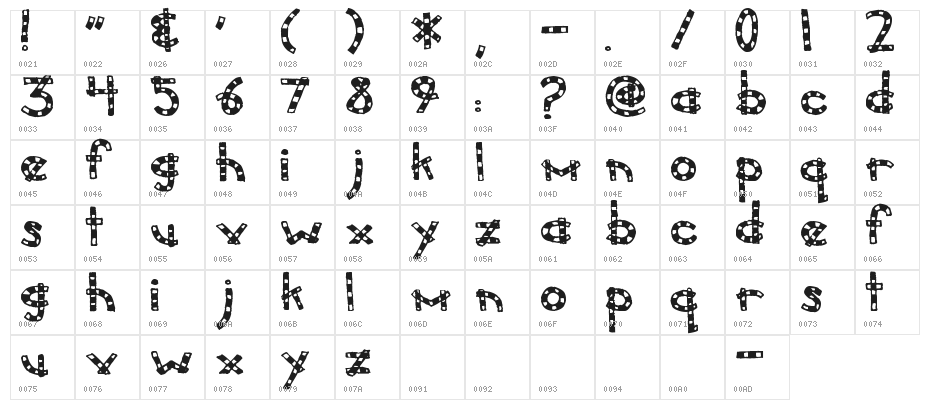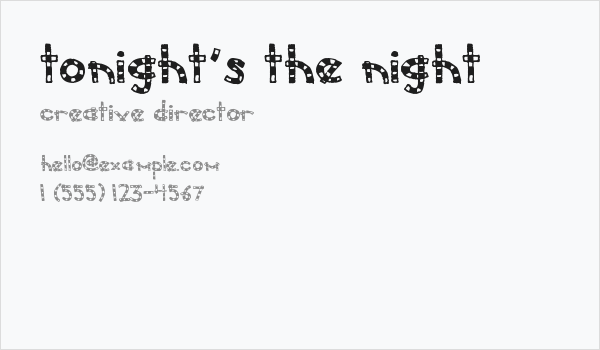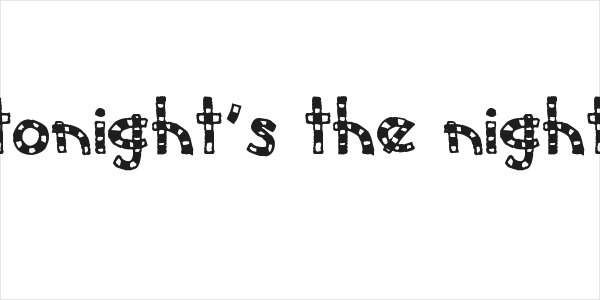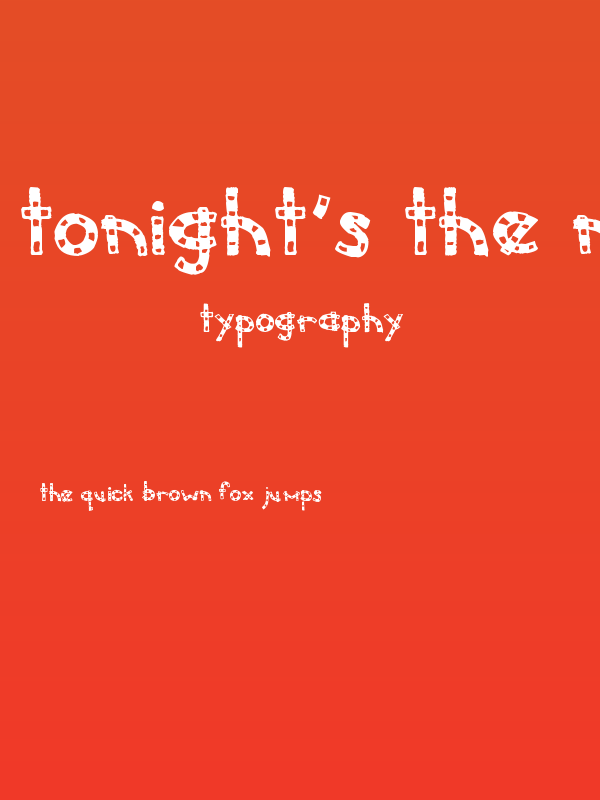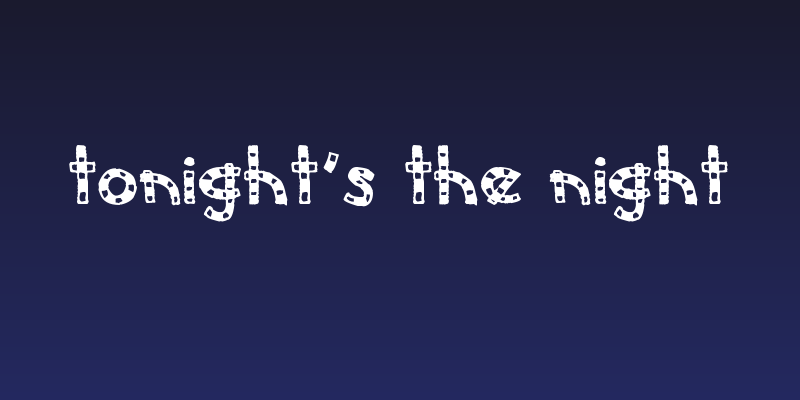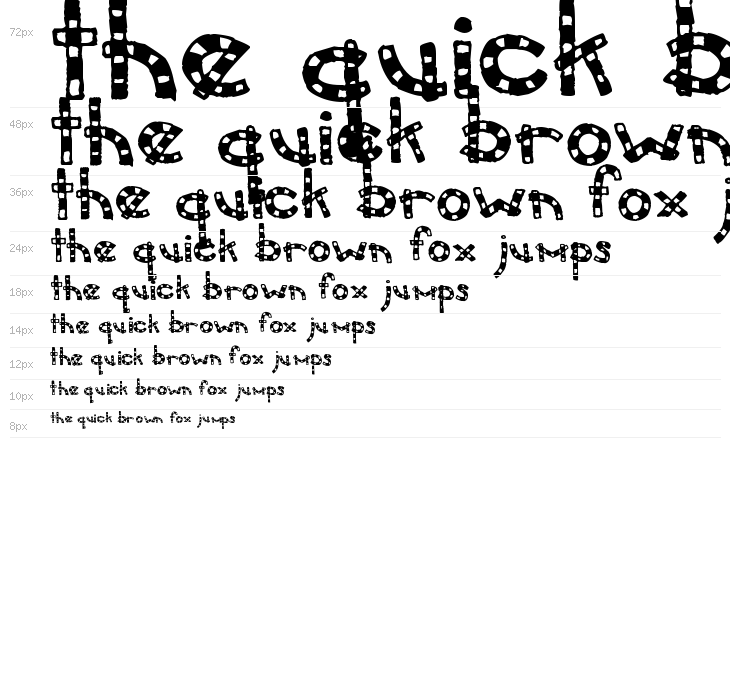
Tonight's the Night Font
Tonight's the Night Description
This playful and whimsical font features a unique design with a dotted pattern filling each character. The letters are bold and rounded, giving them a friendly and approachable appearance. The irregular shapes and playful dots create a sense of fun and creativity, making it ideal for projects that aim to capture attention and convey a sense of joy. The font includes both uppercase and lowercase letters, numbers, and a variety of special characters, all maintaining the same distinctive style. Its boldness ensures readability while the decorative elements add a touch of uniqueness.
| Proposed Projects | Ideal for children's books, party invitations, playful branding, and creative posters. |